Best Canva Kannada Fonts for Stunning Designs
Readers, have you ever struggled to find the perfect Kannada font to bring your Canva designs to life? Choosing the right font is crucial for making your designs visually appealing and conveying the right message. With so many Kannada fonts available, it can be overwhelming. But don't worry, I've got you covered! I've spent countless hours analyzing various Kannada fonts, and I'm ready to share my expertise with you. In this comprehensive blog post, we'll dive into the best Kannada fonts to enhance your Canva designs and make them truly stand out.
Why Kannada Fonts Are Essential for Your Canva Designs
The Power of Language
Kannada, a Dravidian language spoken primarily in Karnataka, India, boasts a rich history and vibrant culture. Using Kannada fonts in your designs demonstrates respect for the language and culture, making your creations more relatable and impactful to Kannada-speaking audiences.
Enhanced Visual Appeal
Kannada fonts offer unique visual characteristics that can elevate your designs. From bold and striking scripts to elegant and flowing styles, there's a font for every design need. By incorporating Kannada fonts, you add visual interest and create a distinct aesthetic.
Improved Readability
Choosing the right typeface for readability is paramount. Some Kannada fonts are designed for optimal legibility, ensuring that your text is easy to read and comprehend.
Top Kannada Fonts for Canva Designs
Now, let's explore some of the best Kannada fonts that can transform your Canva designs.
1. 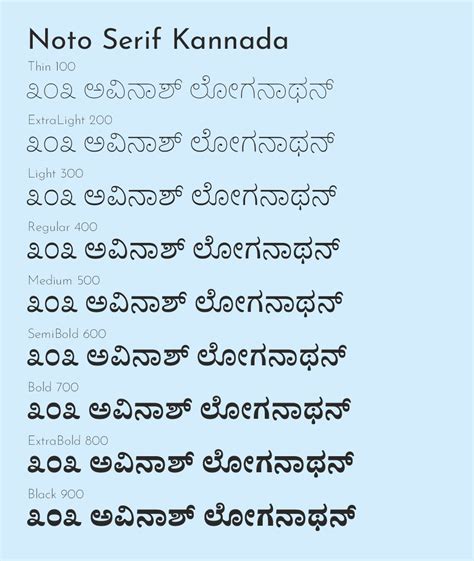
Akshar: A Versatile Choice
Akshar is a popular Kannada font known for its versatility and elegant design. It's a great choice for a wide range of projects, including brochures, posters, social media graphics, and websites. Akshar's clean lines and balanced proportions ensure readability.
2.
Nudi: Traditional Elegance
If you're looking for a traditional Kannada font with a touch of elegance, Nudi is an excellent option. This font draws inspiration from traditional Kannada calligraphy, adding a distinctive charm to your designs. Nudi is perfect for invitations, certificates, and other formal documents.
3.
Roopa: Modern and Bold
Roopa is a modern Kannada font that stands out with its bold and striking design. It's an ideal choice for headlines, posters, and other projects that require a strong visual impact. Roopa's unique style adds a contemporary touch to your designs.
4.
Sangeetha: Flowing Beauty
Sangeetha is a beautiful Kannada font that embodies elegance and flow. It's inspired by the graceful curves of traditional Kannada calligraphy, creating a visually pleasing aesthetic. Sangeetha is perfect for invitations, wedding cards, and other special occasion designs.
5.
Mangal: A Classic Choice
Mangal is a classic Kannada font known for its readability and versatility. It's a reliable choice for a wide range of projects, including documents, presentations, and websites. Mangal's balanced proportions and clear lettering make it an excellent option for everyday use.
6.
Gagan: A Unique Design
Gagan is a unique Kannada font that stands out with its bold and modern design. It's a great choice for projects that require a distinctive look and feel. Gagan's unique features and bold strokes add personality to your designs.
7.
Tunga: Elegant Simplicity
Tunga is an elegant Kannada font that combines simplicity with readability. It's a great choice for projects that require a clean and modern look. Tunga's clean lines and balanced proportions ensure that your text is both stylish and easy to read.
Top Tips for Using Kannada Fonts in Canva
Now that you've discovered some fantastic Kannada fonts, let's explore some helpful tips for using them effectively in Canva:
1. Consider the Context
Before choosing a font, consider the context of your design. A bold font like Roopa might be suitable for a poster, but a more elegant font like Sangeetha might be better for an invitation.
2. Pair Fonts Wisely
Just like with any language, pairing Kannada fonts effectively is essential. Choose combinations that complement each other and create visual harmony. For example, you could pair a bold font like Akshar with a more delicate font like Tunga.
3. Use Font Size and Weight
Experiment with different font sizes and weights to achieve the desired visual impact. Don't be afraid to play around with bold, italic, and other variations to create visual interest.
4. Maintain Readability
Always prioritize readability. Choose fonts that are easy to read, and ensure the font size is appropriate for the intended audience and viewing distance.
Canva Font FAQs
What are some of the best free Kannada fonts available in Canva?
Canva offers a selection of free Kannada fonts, including Akshar, Mangal, and Nudi. These fonts provide a good starting point for your designs.